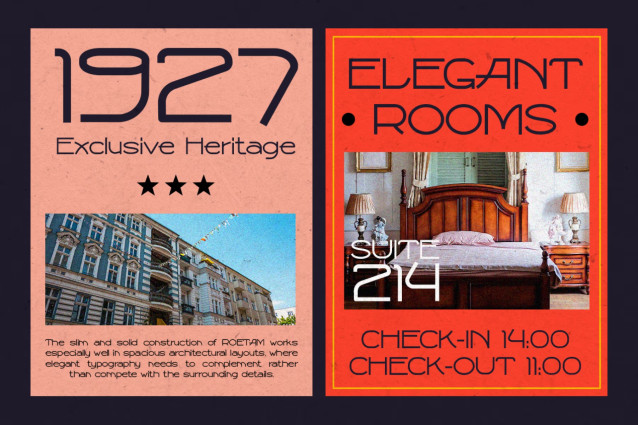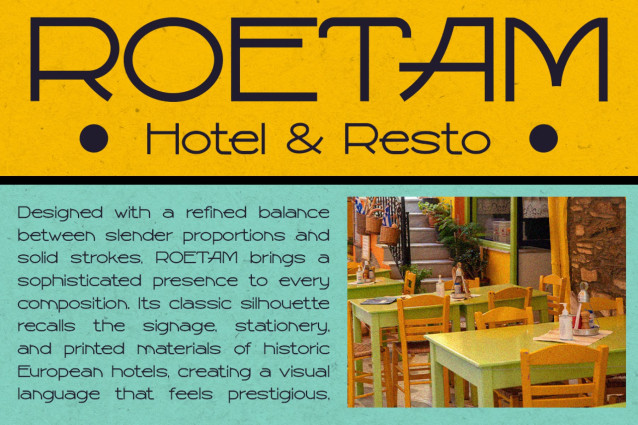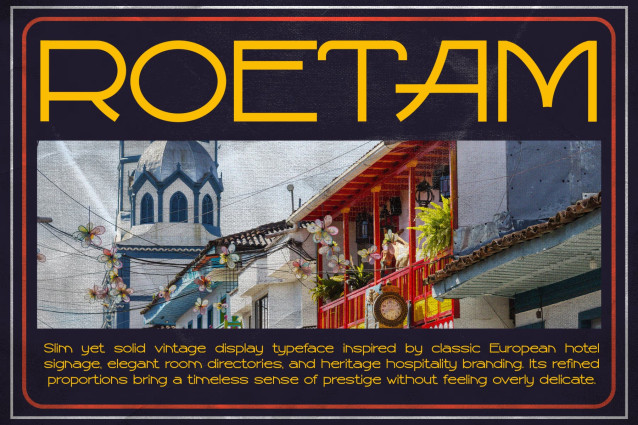
Retro Font ROETAM – Sophisticated, Timeless & Art Deco Inspired
Retro Font ROETAM is an elegant display font that blends classic Art Deco influences with modern geometric precision, creating a refined typeface for premium branding. Not only does it feature sleek letterforms with clean architectural lines, but it also delivers a luxurious retro personality that feels both timeless and contemporary. Moreover, its balanced proportions create a sophisticated visual rhythm that enhances every headline. In addition, the minimalist structure keeps the font highly readable while preserving its vintage elegance.
Furthermore, ROETAM brings a premium atmosphere to branding, editorial layouts, and hospitality projects. As a result, every design feels more exclusive and professionally crafted. Meanwhile, its decorative details add subtle character without overwhelming the composition.